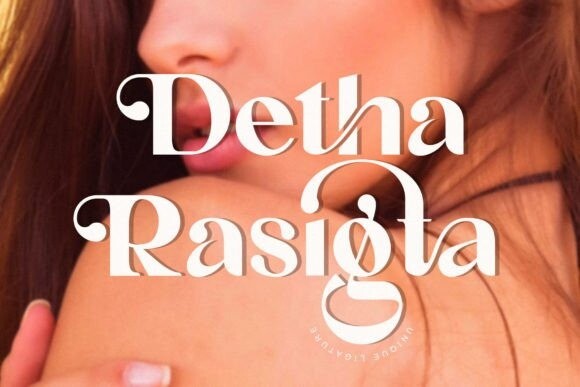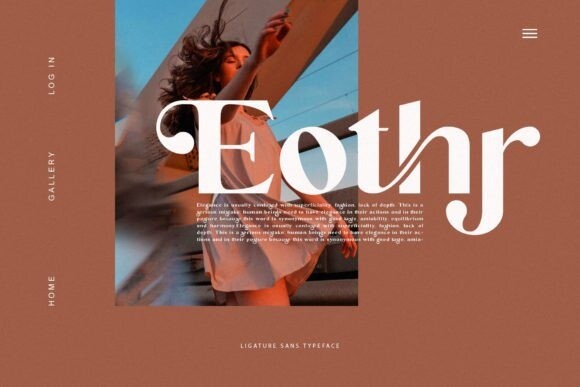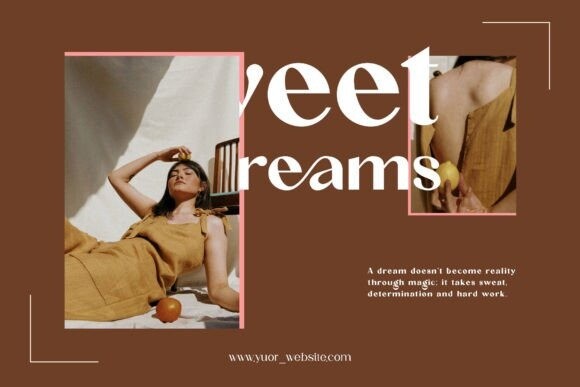
Detha Rasigta Font
Detha Rasigta is an elegant and classy slab serif typeface. This font is both modern and nostalgic and works great for logos, magazines, and social media. Already matched up and ready to be used in your next design! For those of you who are needing a touch of elegance, style, class, and modernity for your designs, this font was created for you!